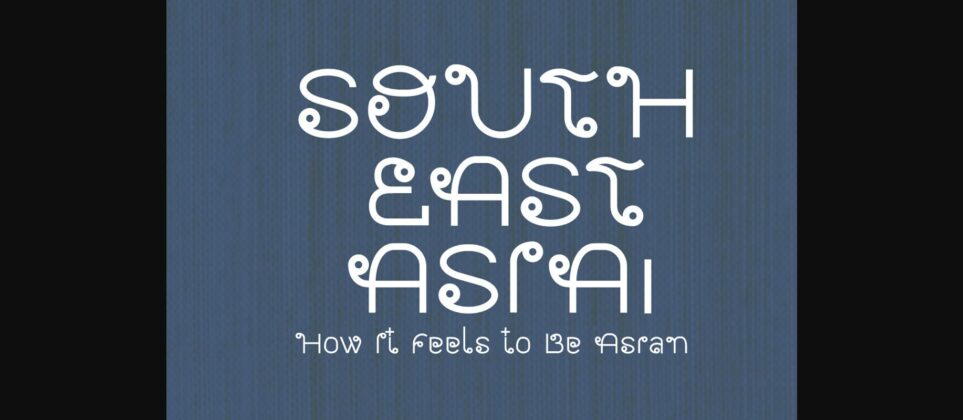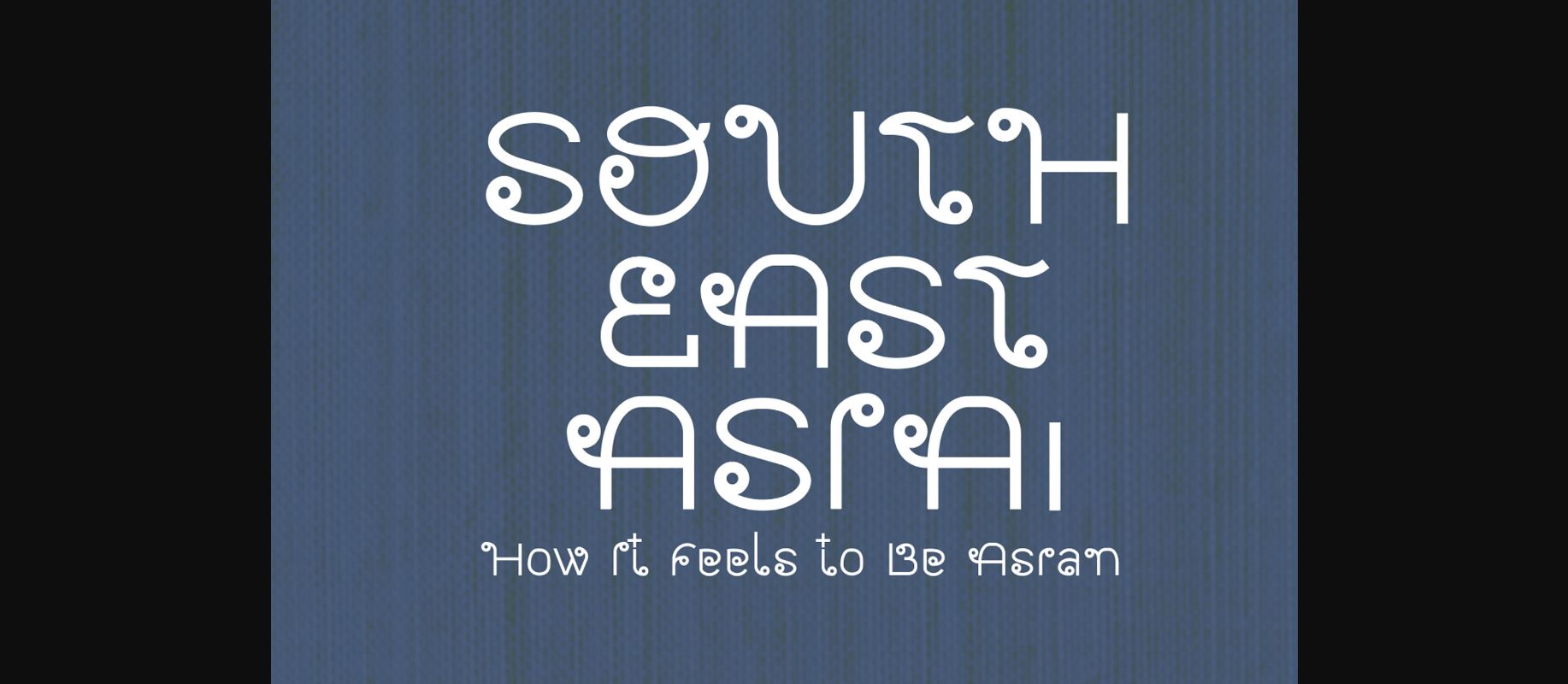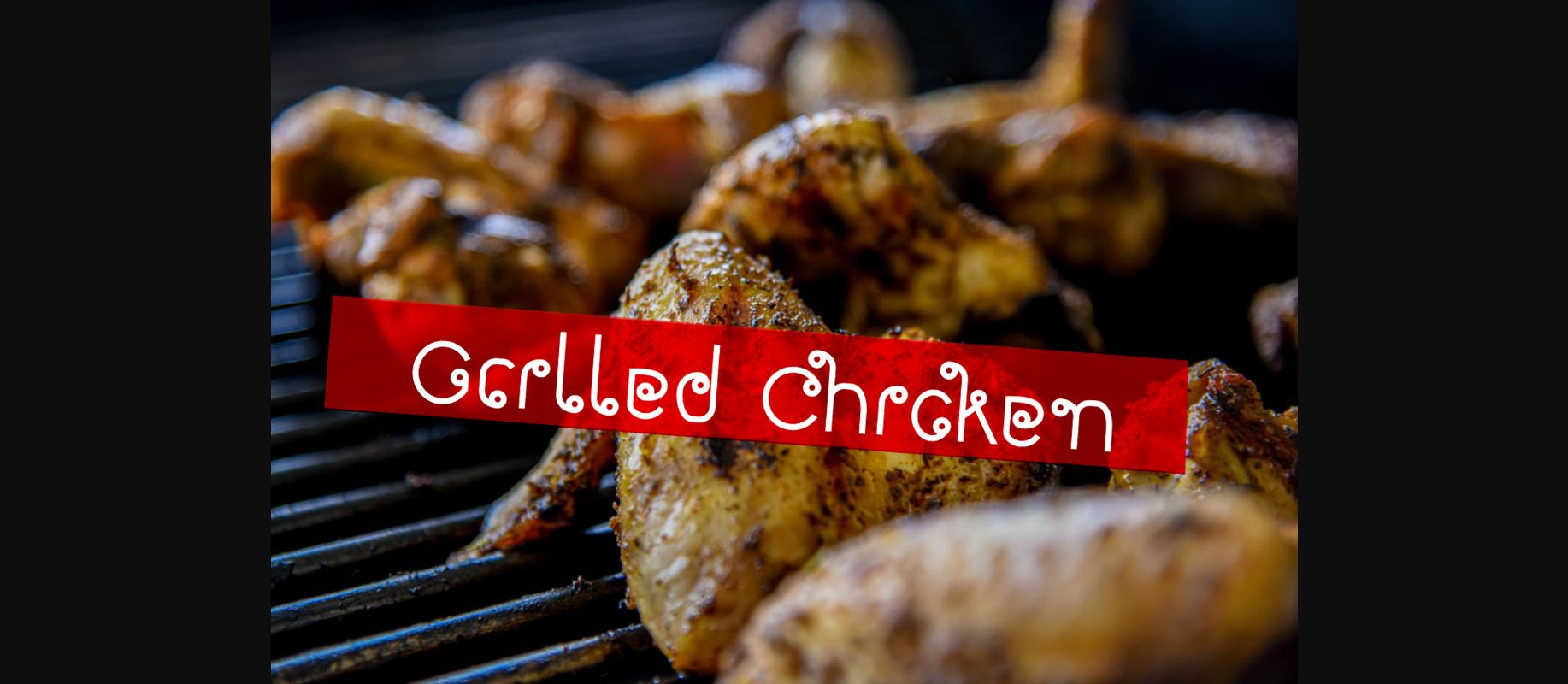
About Southeast Asia Font
Southeast Asia font is an oriental-inspired decorative font. Incredibly versatile, this font fits a wide pool of designs, elevating them to the highest levels. Add this font to your favorite creative ideas, and notice how it makes them come alive!